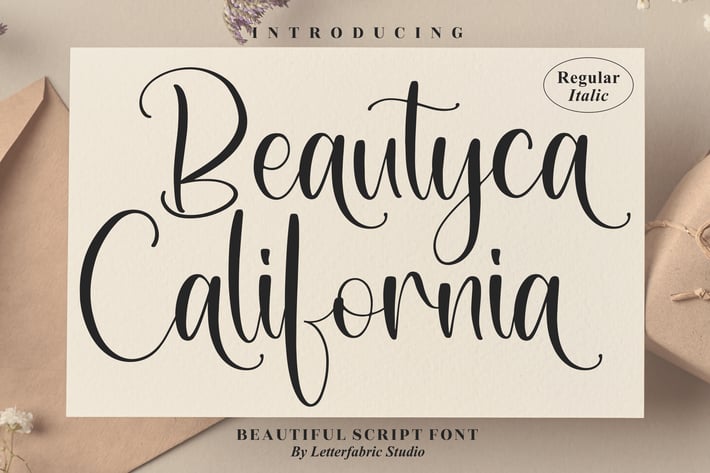
Beautyca California Script Font
Beautyca California is a charming and elegant handwritten typeface designed to bring warmth and sophistication to your projects. With its smooth curves and natural flow, this font is ideal for both digital and print designs such as branding, social media posts, invitations, and personal projects.
+ Elegant script with regular & italic styles
+ Smooth curves and natural handwritten flow
+ Versatile for both modern and classic designs
+ Perfect readability in various sizes
+ Wedding invitations
+ Branding & logo design
+ Social media graphics
+ Greeting cards & stationery
+ Personal and commercial projects
Add a touch of California charm to your designs with Beautyca — a graceful script that blends elegance with authenticity.